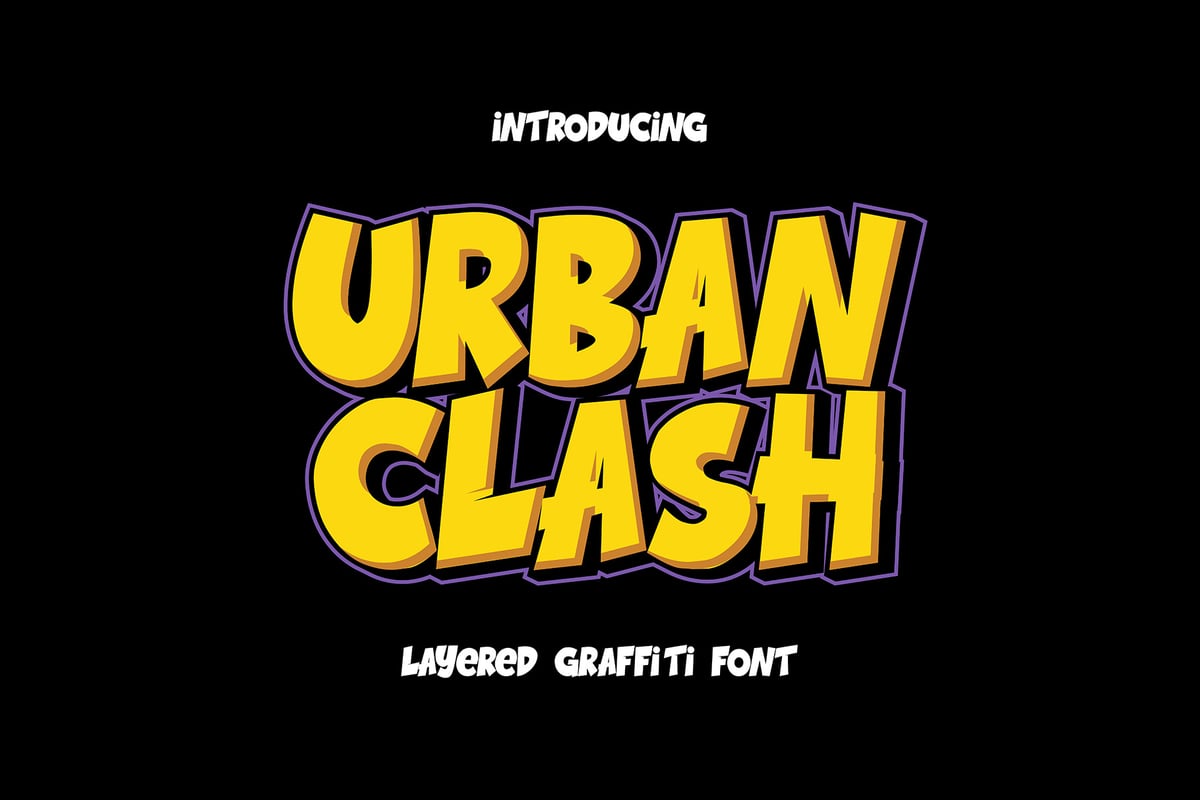
Urban Clash
Urban Clash is the ultimate layered graffiti font that captures the raw energy of street art. Designed to stand out, it brings a bold and rebellious vibe to your projects, perfect for making a lasting impression.